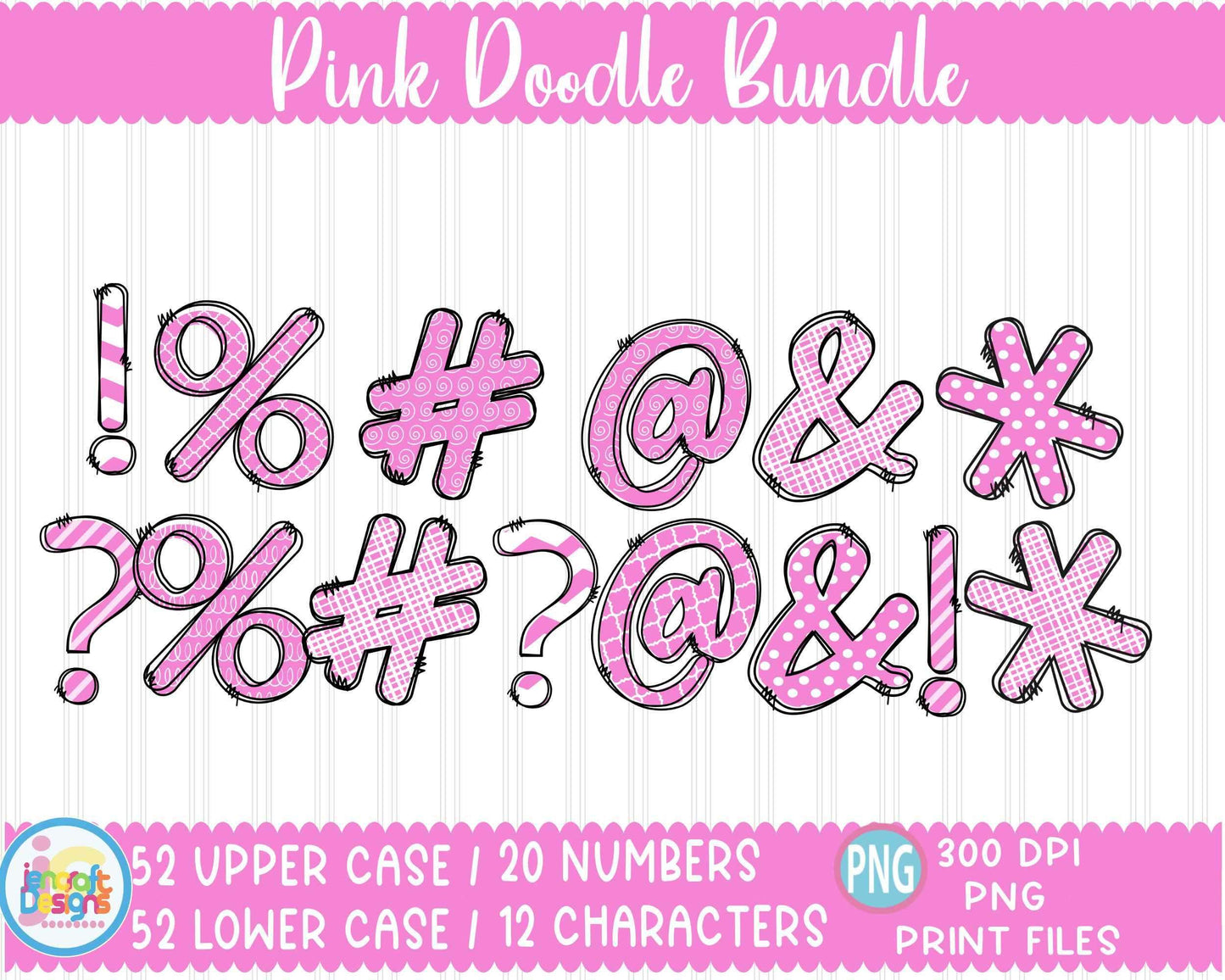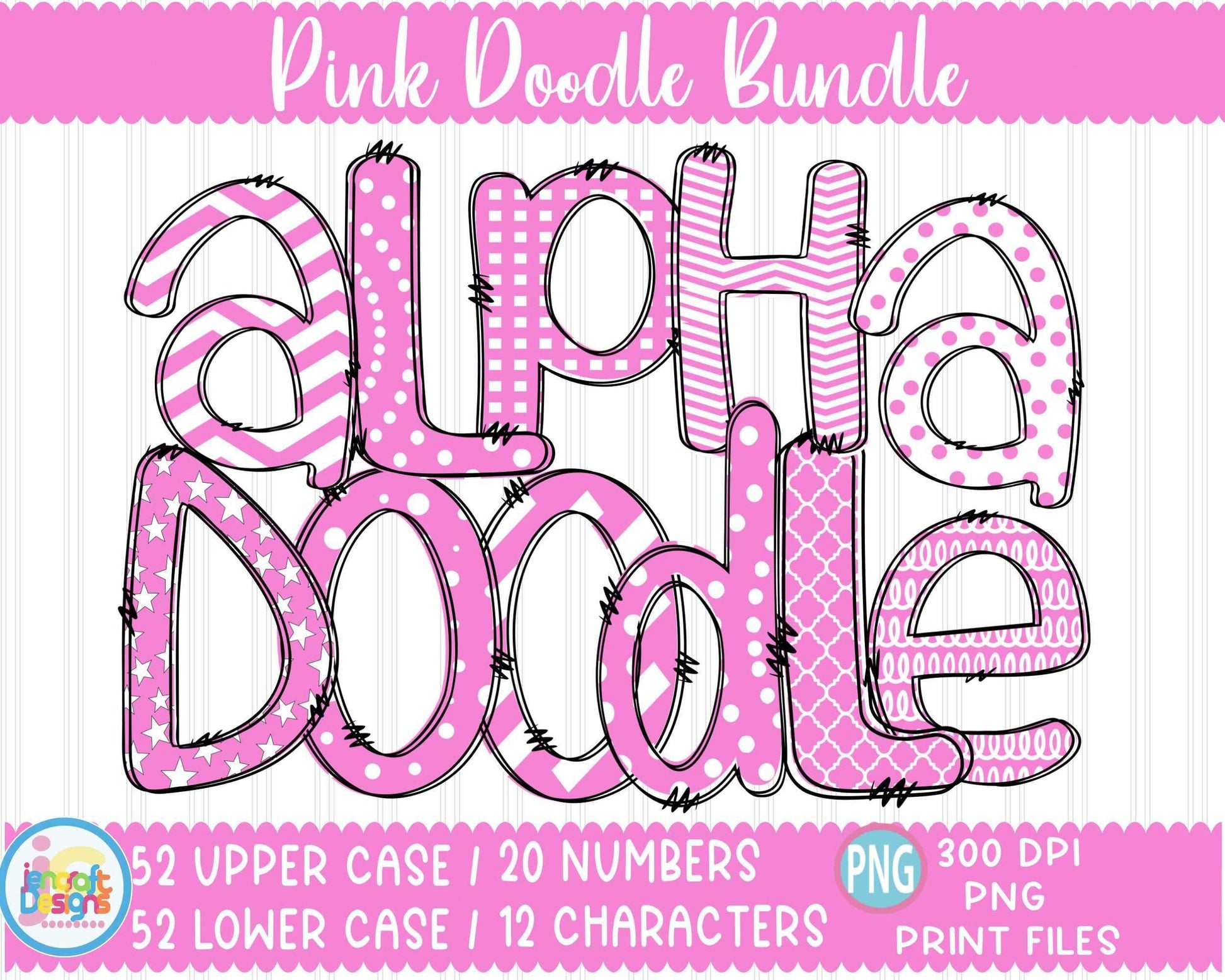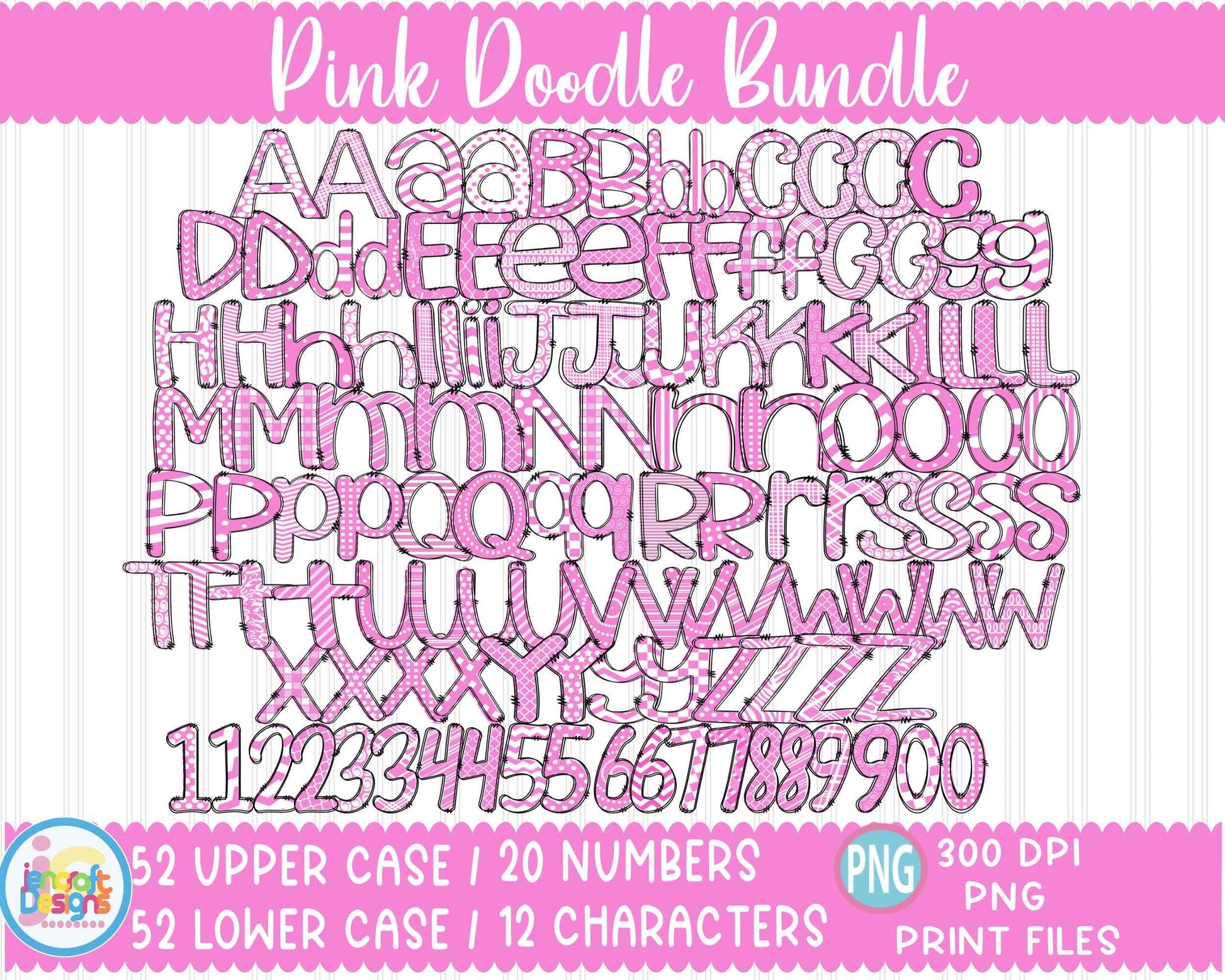
Pink Breast Cancer Awareness Doodle Letters PNG | Alphabet Sublimation Bundle
Craft with purpose using this Pink Breast Cancer Awareness Doodle Letters PNG Bundle — a hand-drawn alphabet set in meaningful pink tones, perfect for awareness shirts, tumblers, tote bags, and fundraiser crafts. Each letter is saved individually for easy drag-and-drop use!
Breast cancer awareness shirts, pink ribbon tumblers, fundraiser tote bags, DTF transfers, awareness walk gear, personalized support gifts, and cause-themed crafts.